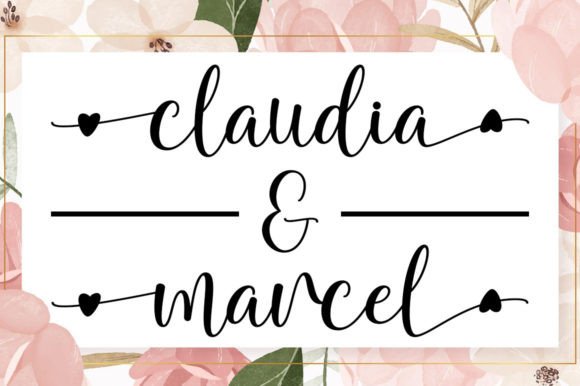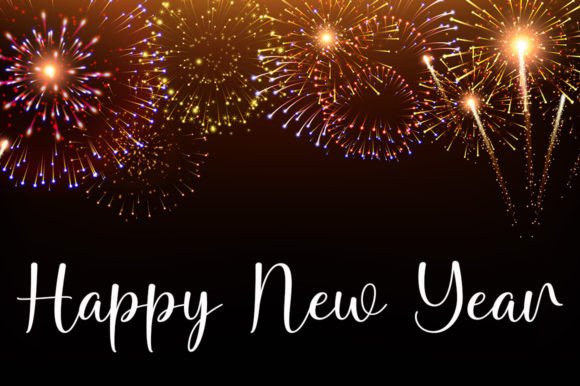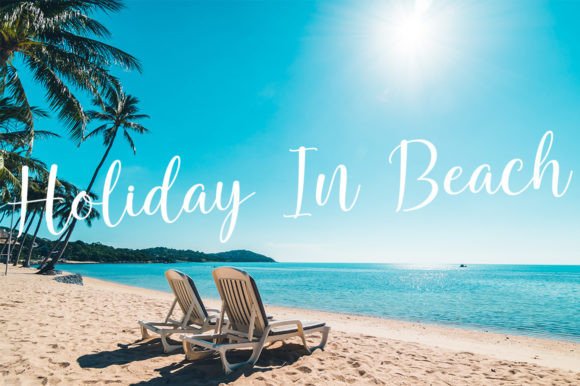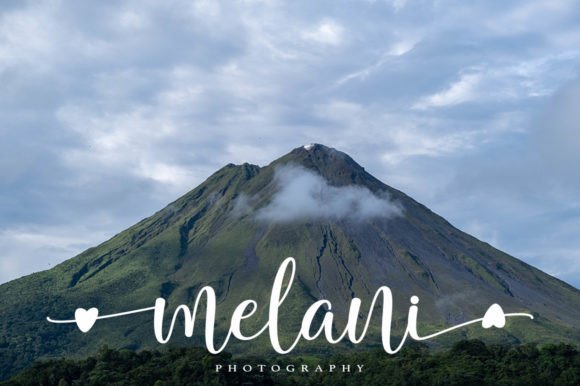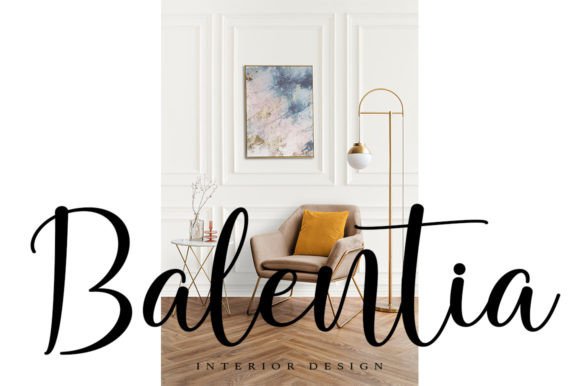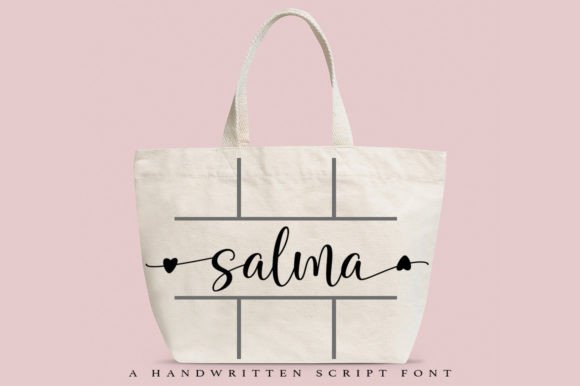
Introducing December Script Font: A Sweet and Delicate Handwritten Font
Are you looking for a font that can add a touch of romance and elegance to your designs? Look no further than the December Script Font, a beautiful and delicate handwritten font that’s perfect for creating stunning wedding invitations, cards, and other designs that require a personal touch.
What Makes December Script Font Special?
December Script Font is a sweet and dainty font that’s designed to bring a touch of joy and whimsy to your designs. Its delicate and flowing script style makes it ideal for creating romantic and personalized designs that will leave a lasting impression on your audience.
December Script Font is specifically designed with wedding invitations and cards in mind. Its elegant and cursive style makes it perfect for creating romantic and sophisticated designs that will set the tone for any special occasion.
Whether you’re a designer, crafter, or DIY enthusiast, December Script Font is the perfect choice for creating beautiful and unique wedding invitations, save-the-date cards, and other stationery designs. Its versatility and ease of use make it accessible to anyone, regardless of their design experience.
Key Features of December Script Font
- Sweet and delicate handwritten font: December Script Font features a beautiful and dainty script style that’s perfect for creating romantic and personalized designs.
- Perfect for wedding invitations and cards: December Script Font is specifically designed with wedding invitations and cards in mind, making it the perfect choice for creating romantic and sophisticated designs.
- Elegant and cursive style: The font’s elegant and cursive style makes it perfect for creating designs that require a touch of sophistication and elegance.
- Easy to use: December Script Font is easy to use and accessible to anyone, regardless of their design experience.
Tips for Using December Script Font
Here are a few tips for using December Script Font to create stunning designs:
- Pair it with a sans-serif font: Pair December Script Font with a sans-serif font to create a beautiful and contrasting design that’s perfect for headings and body text.
- Use it for titles and headings: December Script Font is perfect for titles and headings, where its elegant and cursive style can really shine.
- Use it for DIY projects: December Script Font is perfect for DIY projects, such as creating handmade wedding invitations, cards, and other stationery designs.
In conclusion, December Script Font is a beautiful and delicate handwritten font that’s perfect for creating romantic and personalized designs. Its PUA encoding, elegant and cursive style, and ease of use make it the perfect choice for designers, crafters, and DIY enthusiasts alike.